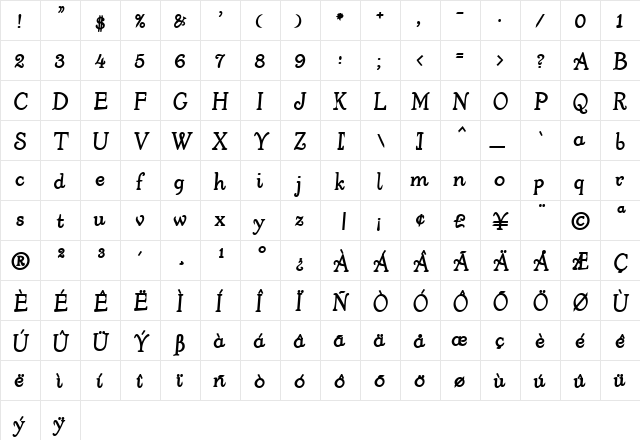
4ArmJoltScriptBold Regular
Design Context for 4ArmJoltScriptBold Typeface
4ArmJoltScriptBold flows with the natural rhythm of handwritten lettering, making it ideal for designs that call for warmth and personal expression. Its bold stroke weight gives it real presence on the page.
Font Pairing: Combine 4ArmJoltScriptBold with a simple geometric sans for maximum contrast — the tension between flowing curves and clean structure is a classic typographic pairing.
Pro Tip: Use 4ArmJoltScriptBold for short runs of text — names, titles, or taglines. Extended body copy in script faces tires the eye quickly.